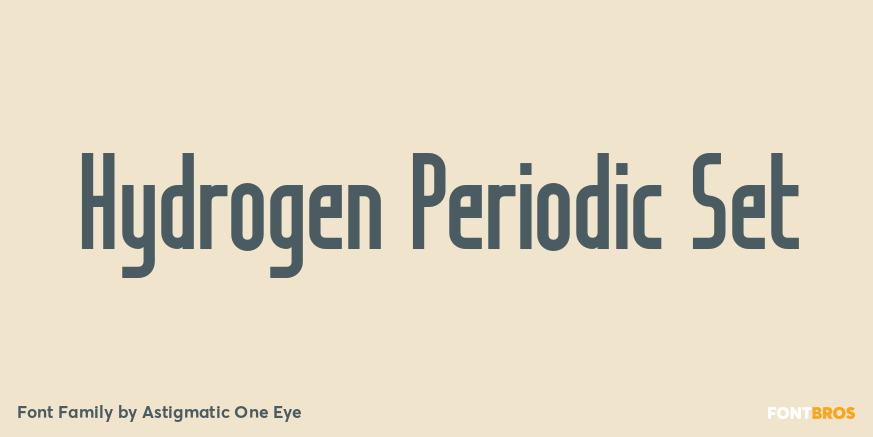
Hydrogen Periodic Set
About Hydrogen Periodic Set
March 2004 marks the launch of the first set of what will be a new signature line of epic proportions. Astigmatic has always been interested in testing their personal limits, and this line will prove to be no exception to the rule, as this fixed scale…